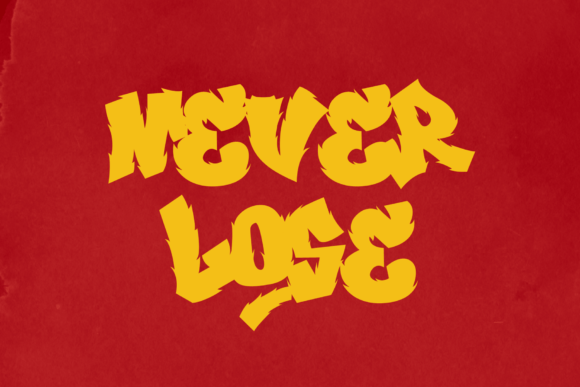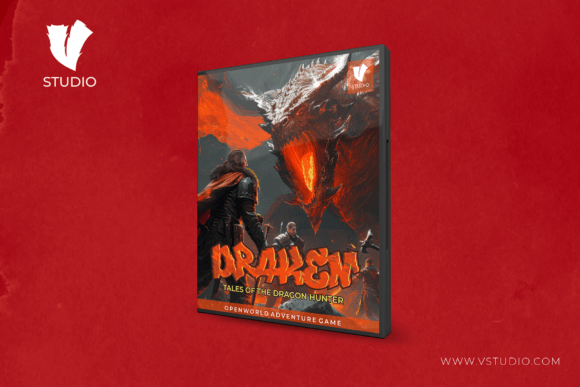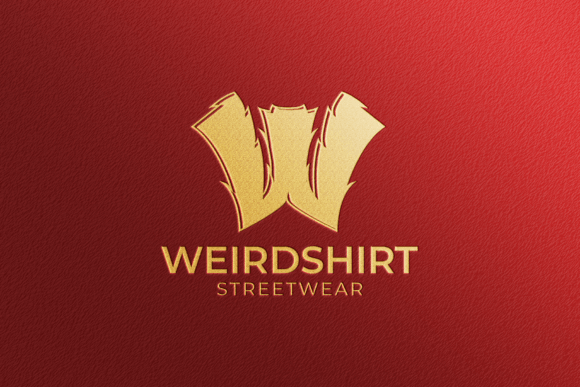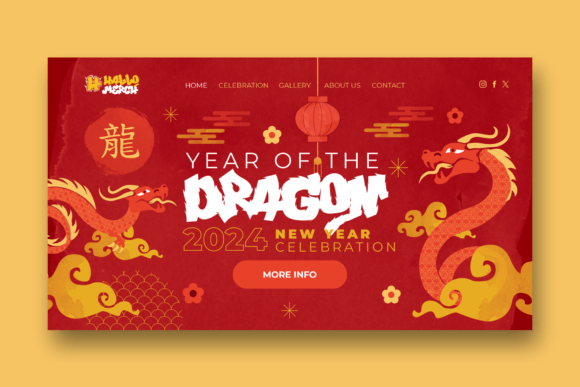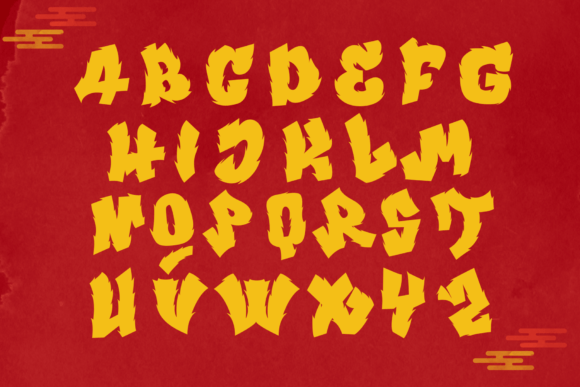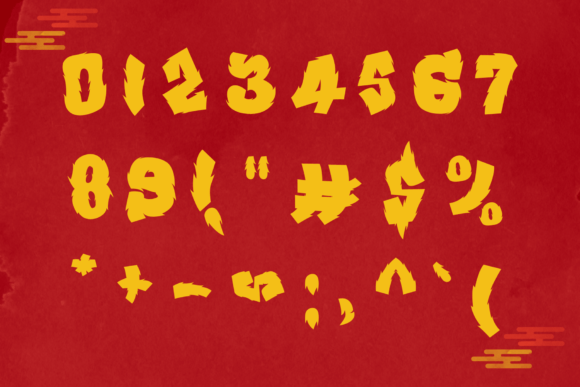
Unleashing the Fire Within: Discover the Dragon Flame Font
As a designer, there’s nothing quite like the thrill of finding that perfect font to bring a project to life. You’re browsing through your library, scrolling through options, and suddenly – it hits you. A spark of inspiration ignites, and you know exactly what you need. That’s how many designers feel when they lay eyes on the Dragon Flame Font for the first time.
Designed to channel the raw power and mystique of dragon fire, this spectacular display font is a bold choice for any project with an adventurous or fantastical twist. Whether you’re crafting a game interface, designing a poster with an air of excitement, or creating a cover for a fantasy novel, the Dragon Flame Font is an exceptional option. Its unique energy is sure to make your designs stand out and leave a lasting impression.
- Unique Characteristics: Features a distinctive, hand-drawn design with intricate flames and dragon-inspired elements, adding a touch of fantasy and mysticism to any design.
Review: Dragon Flame Font
Overall, I think the Dragon Flame Font is a solid choice for those looking to add a touch of fantasy and drama to their design projects. ✨ The font’s unique, fiery design elements make it perfect for use in branding, advertising, or any project where you want to evoke a sense of excitement and energy.
One of the things I like most about this font is its versatility. ✨ It comes in a range of styles, from bold and statement-making to more subtle and elegant variations. This makes it easy to find the perfect fit for your project, whether you’re looking to make a big impact or add some subtle flair.
One of the main limitations of the Dragon Flame Font is its lack of legibility at smaller font sizes. ⚠️ This can make it difficult to read and understand text in certain contexts, such as on small screens or in tight spaces.
Another limitation is the font’s limited language support. ⚠️ While it supports a wide range of languages, it may not be suitable for use in projects that require extensive language support.
In conclusion, I think the Dragon Flame Font is a great choice for designers looking to add some excitement and energy to their projects. While it has some limitations, its versatility and unique design elements make it a valuable addition to any design toolkit.
Key Features
- Unique, fiery design elements
- Versatile, with a range of styles to choose from
- Perfect for use in branding, advertising, and more
- Lack of legibility at smaller font sizes
- Limited language support